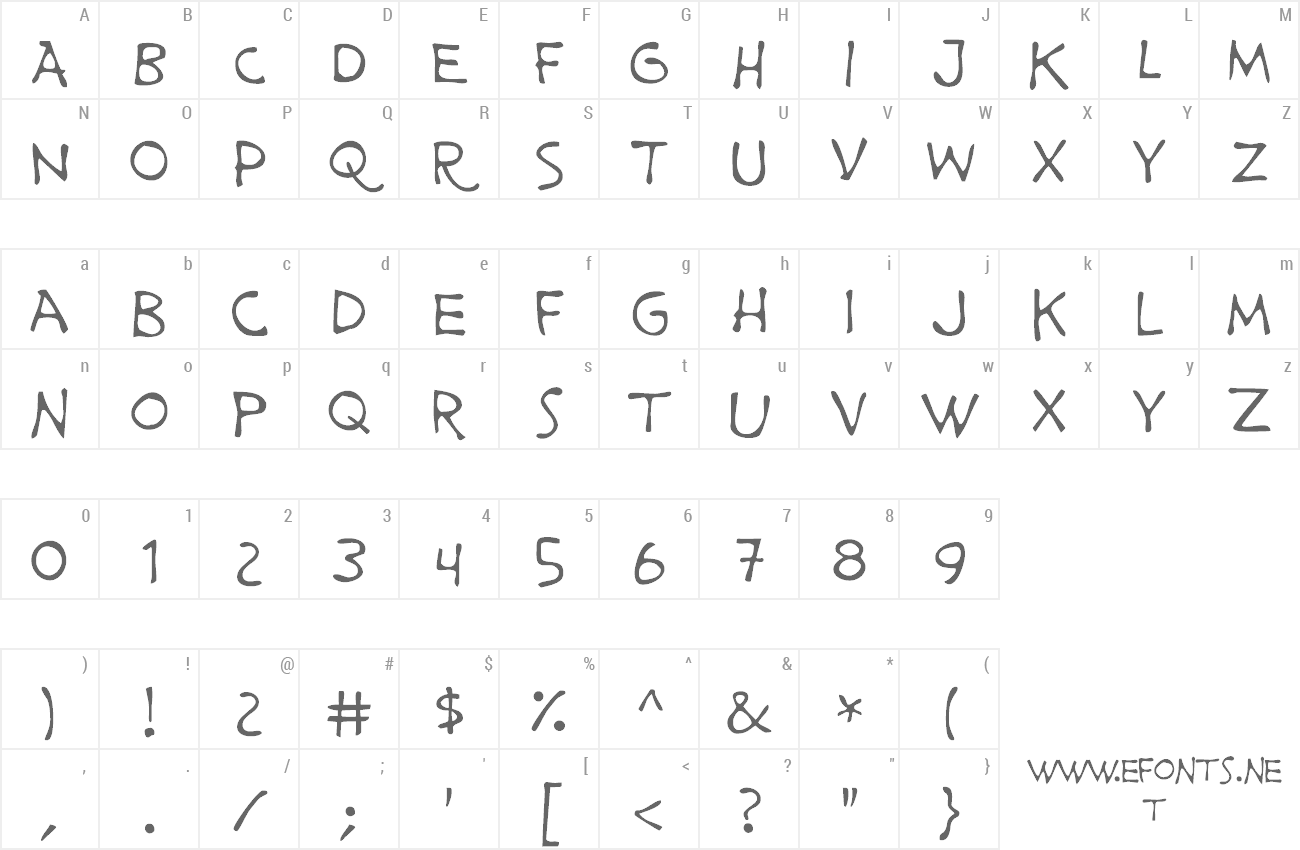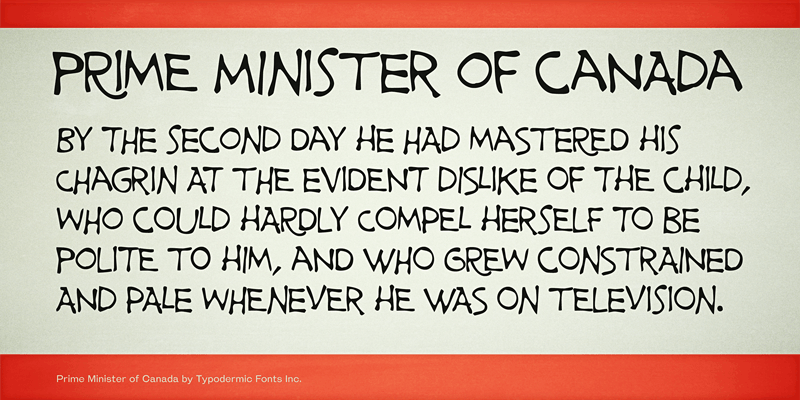
Preview and download Prime Minister of Canada Font. Created by Typodermic Fonts in Fancy Comic styles with 100% Free license.
Prime Minister Of Canada is a free-and-easy, hand lettered cartoon font. This font includes a license that allows free commercial use: sometimes referred to as a desktop license. This allows you to install the font on a computer and use it to create posters, web graphics, game graphics, t-shirts, videos, signs, logos and more. Read the license agreement for details. If you'd like to embed this font in an app, ebook, on the web or anything that's not covered by the desktop license agreement, visit the link below. You'll find distributors who offer different types of licenses or you can contact me for help. http://typodermicfonts.com/prime-minister-of-canada/ |